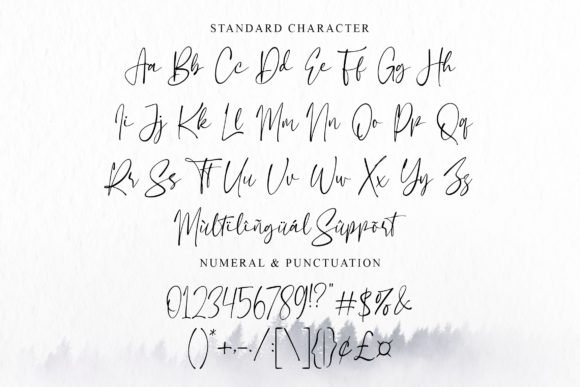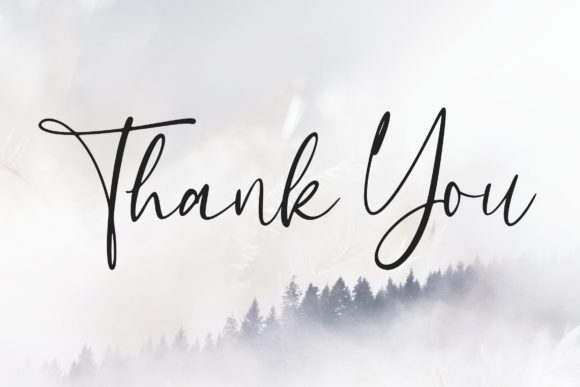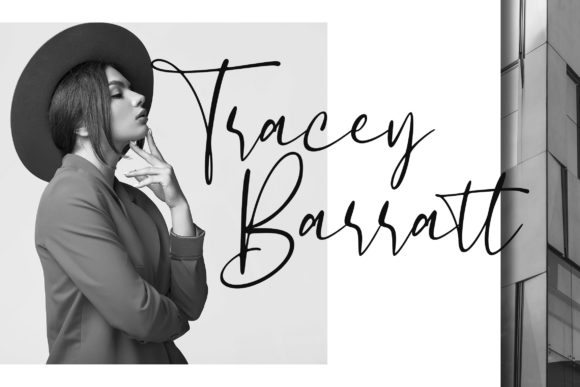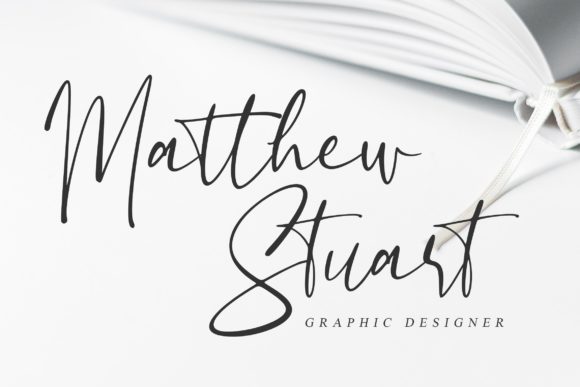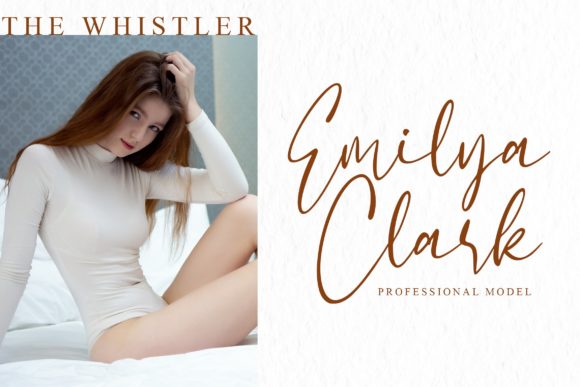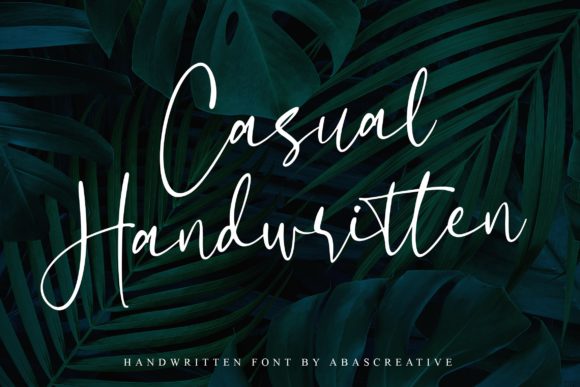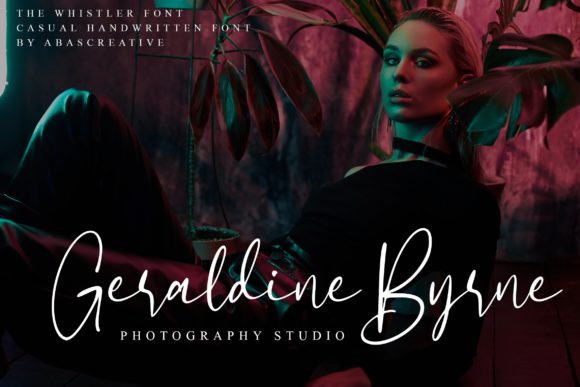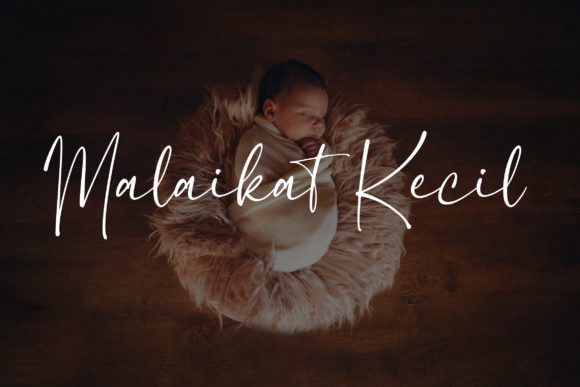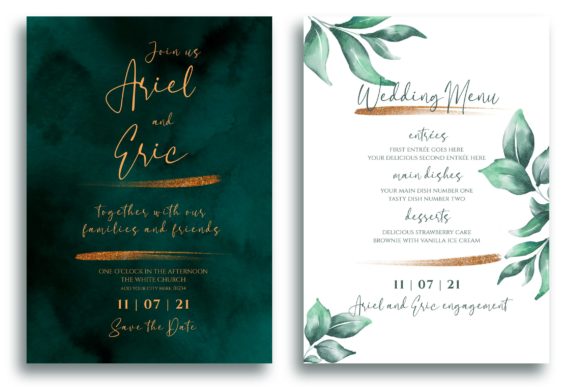
The Whistler Font
About The Whistler Font
The Whistler is a casual and relaxed handwritten font. This versatile script font has a wide spectrum of applications ranging from greeting cards to headlines and is guaranteed to add a romantic feel to your next project.